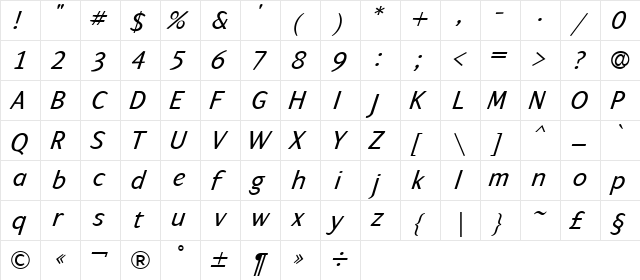
ArtemiusSans Italic
Italic · Letterhead studio especially for ArtLebedev Group. Created by Yuri Gordon  ·
Foundry Letterhead studio especially for ArtLebedev Group. Created by Yuri Gordon
Design Context for ArtemiusSans Typeface
ArtemiusSans is a composed and adaptable typeface that performs quietly and consistently across a wide range of design contexts. The dynamic lean of this cut emphasises speed and emphasis in any layout.
Pro Tip: Use ArtemiusSans for emphasis, pull quotes, and subheadings where its slanted energy can add rhythm to the layout.